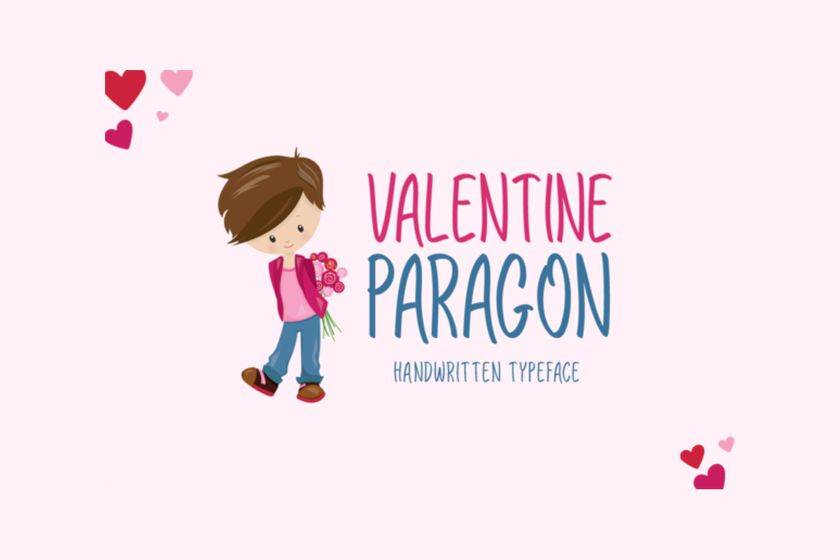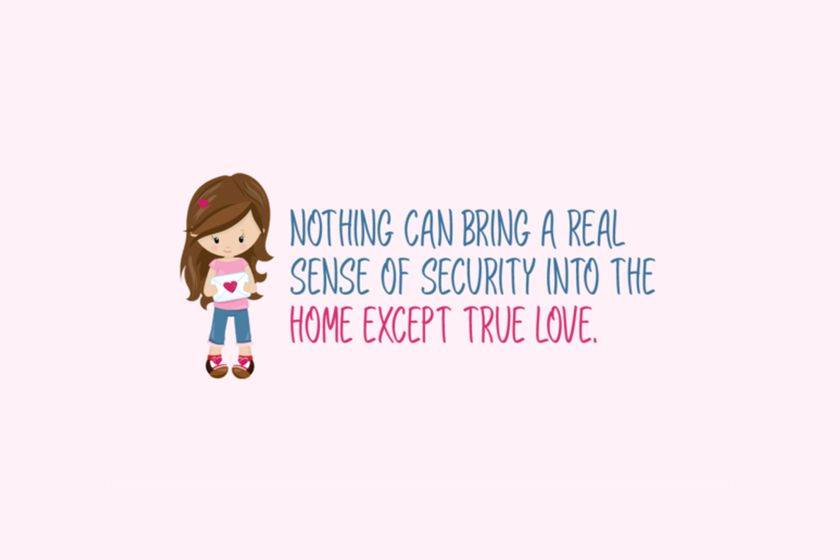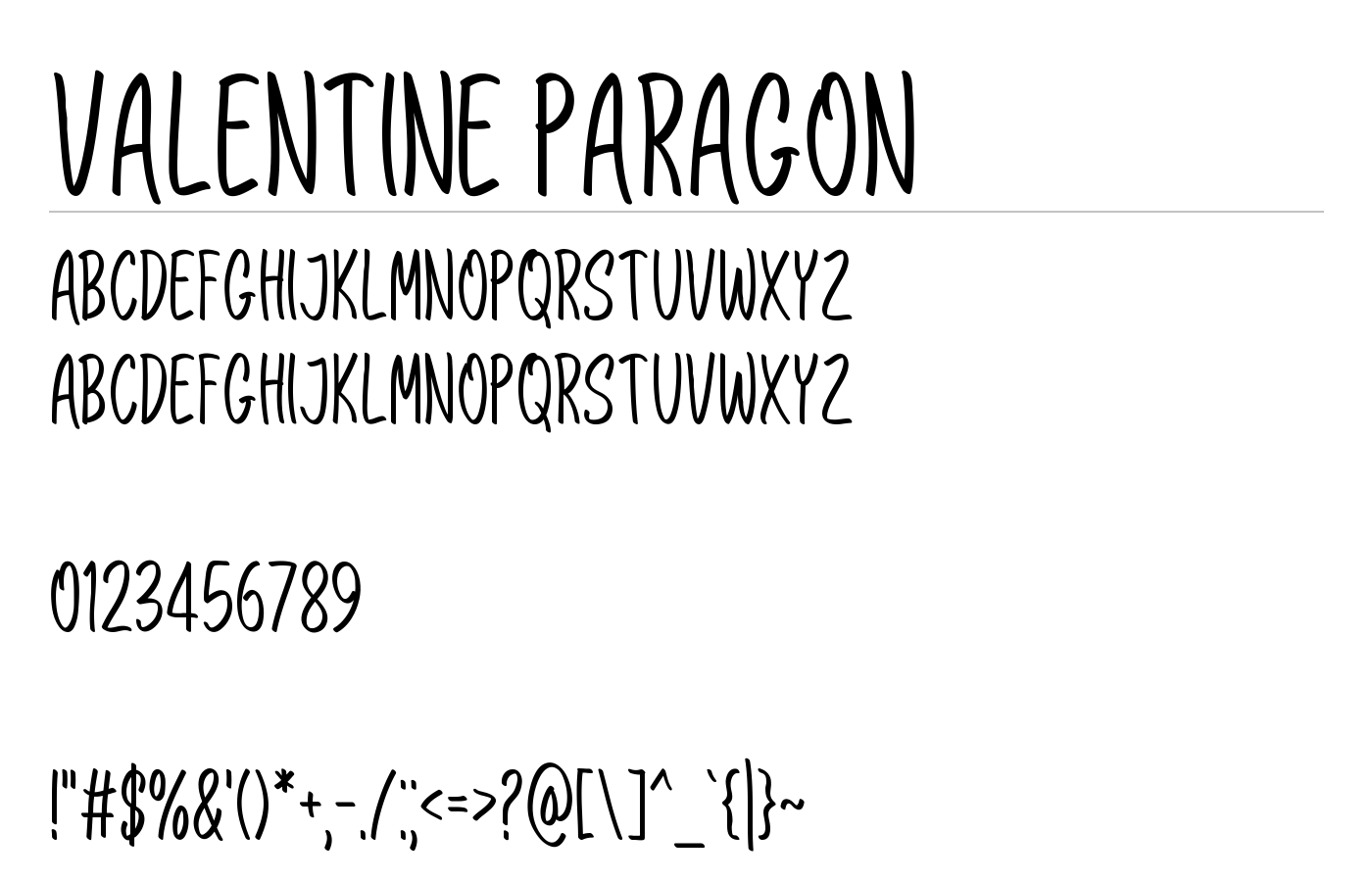
Valentine Paragon is a playful and casual sans serif font with a hand-drawn, slightly elongated style giving it a friendly and approachable feel. Its narrow letterforms and tall x-height make it great for attention-grabbing headlines, logos, and creative projects that want to convey warmth and personality. This font works well in informal designs, packaging, and social media where a fun, expressive tone is desired.
Valentine Paragon Font
About Valentine Paragon Font